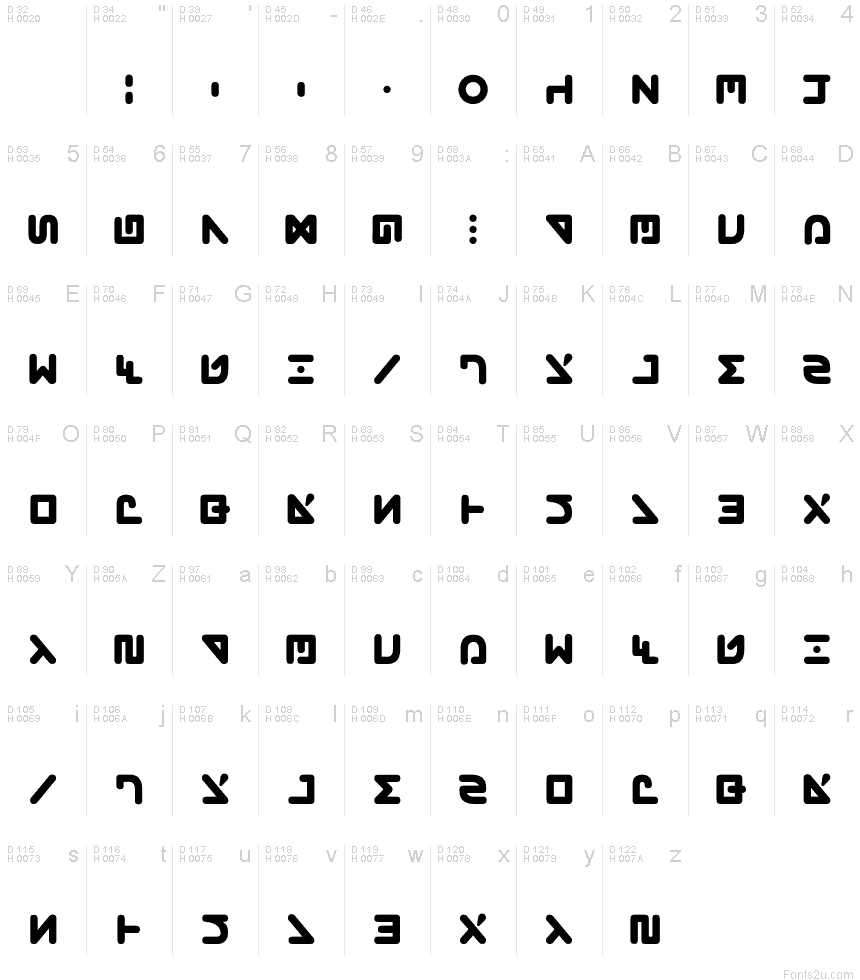
Archipelago
Archipelago font by Vic Fieger is a free dingbat typeface that turns every keystroke into a bold, alien-looking glyph. Thick, inky strokes, soft corners, and sharp triangular cutouts give it the feel of a secret code etched into metal panels or sci‑fi control consoles. The symbols read as one visual system, so you can build patterns, “encrypted” words, or full graphic textures with ease.
Using Archipelago, you can give game titles, sci‑fi posters, escape-room branding, tech event badges, stickers, and puzzle zines an instant otherworldly aura. This free font shines when set large and spaced out, almost like icons. For readable text, pair it with a clean geometric sans and let Archipelago handle the mysterious accents and headlines.